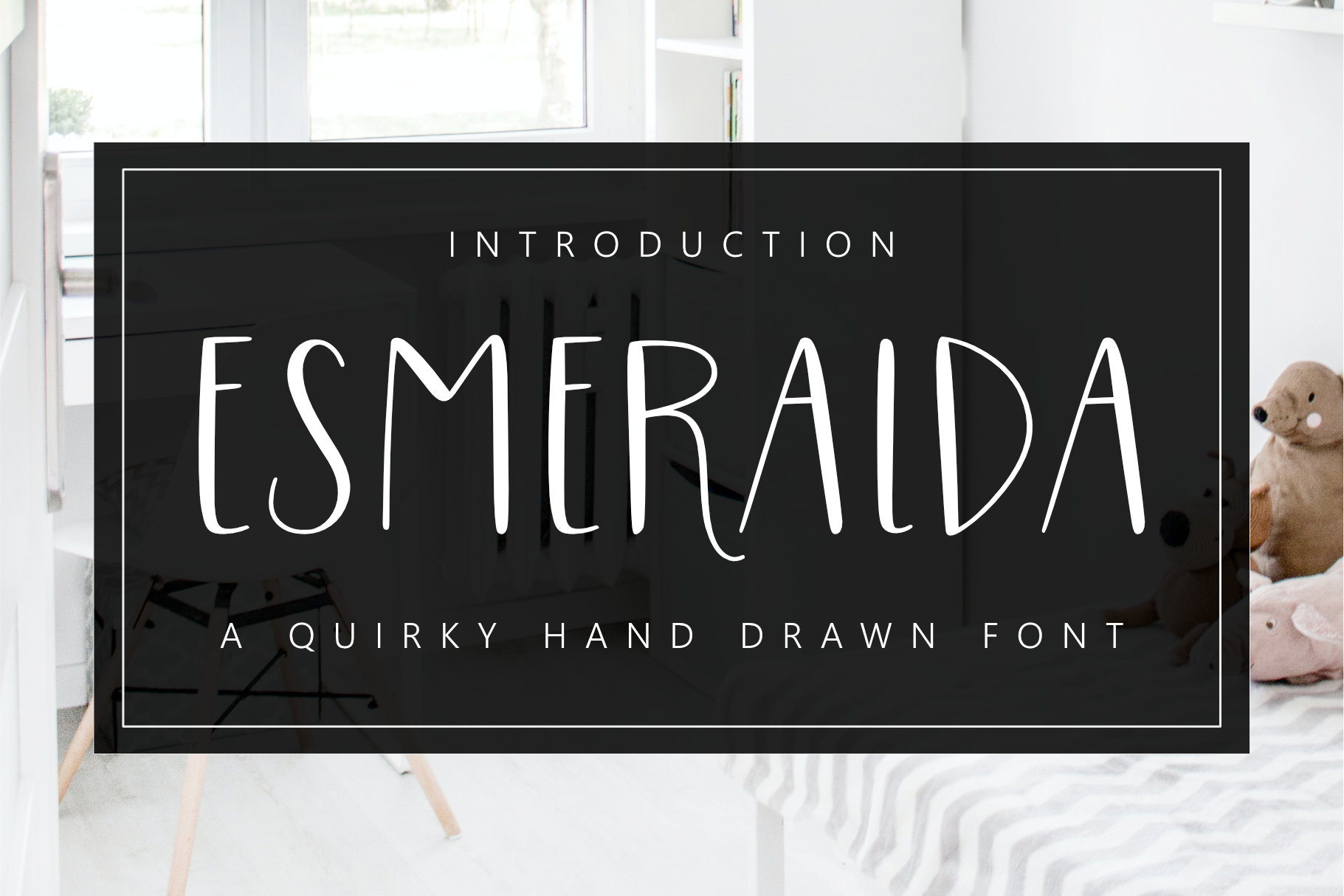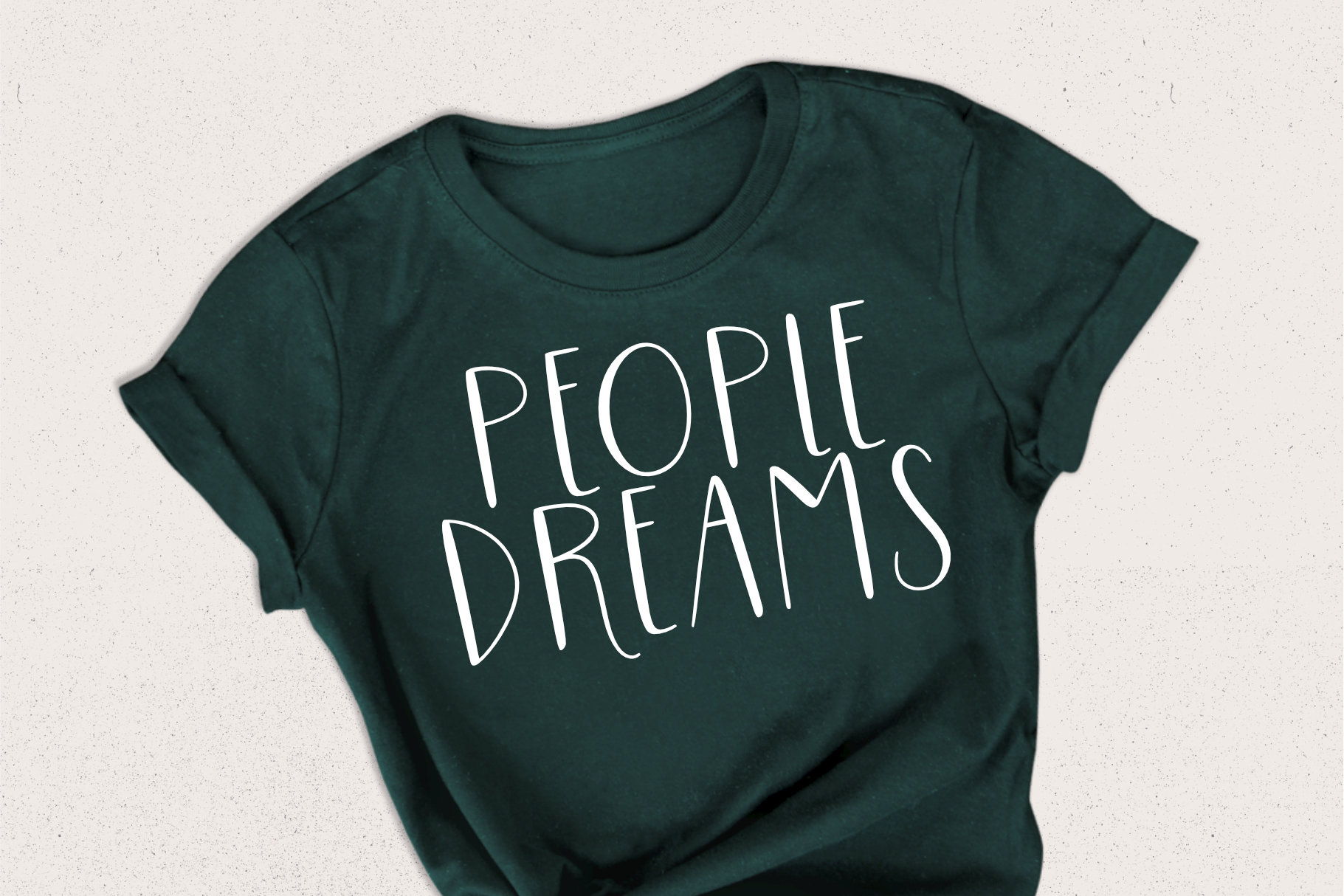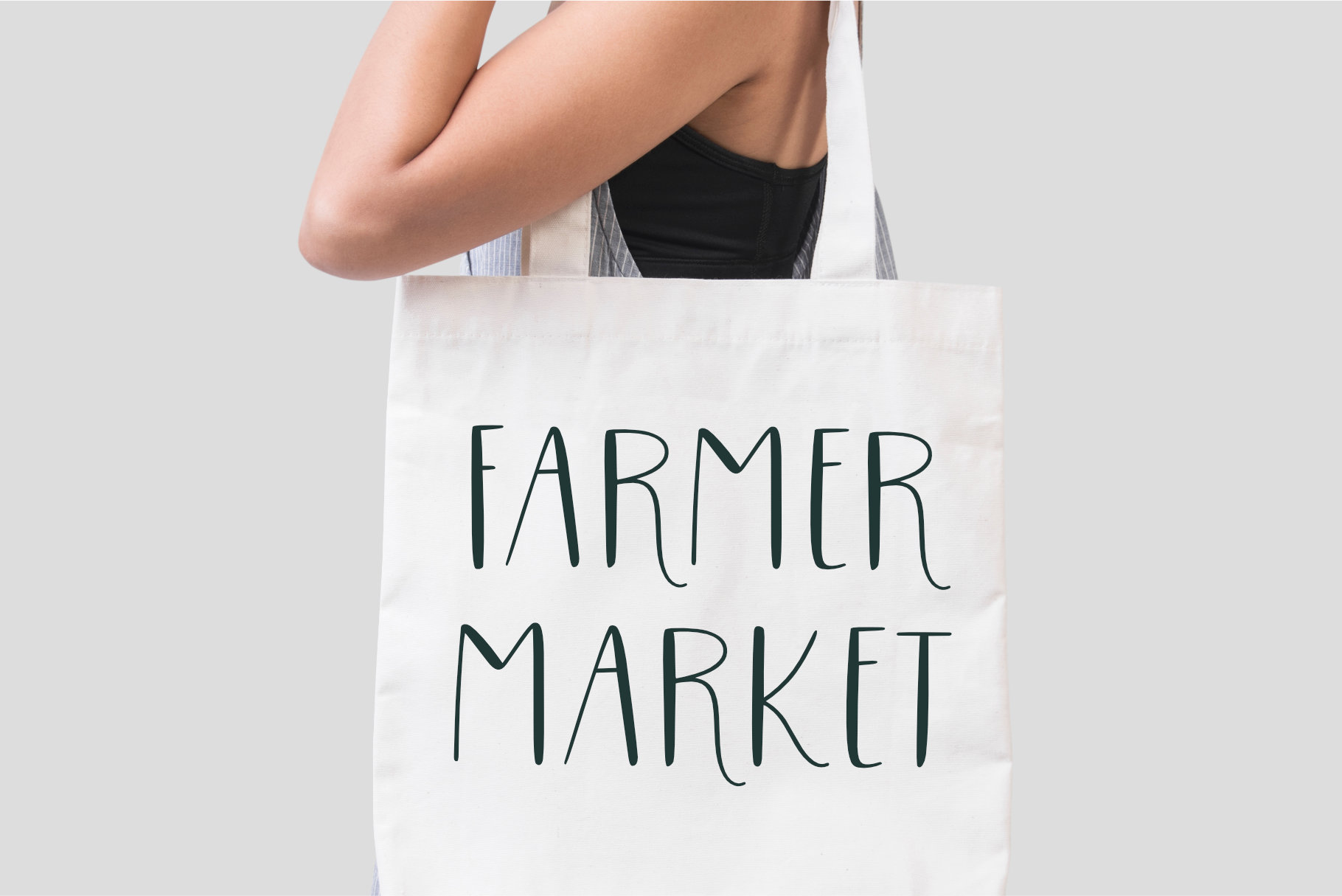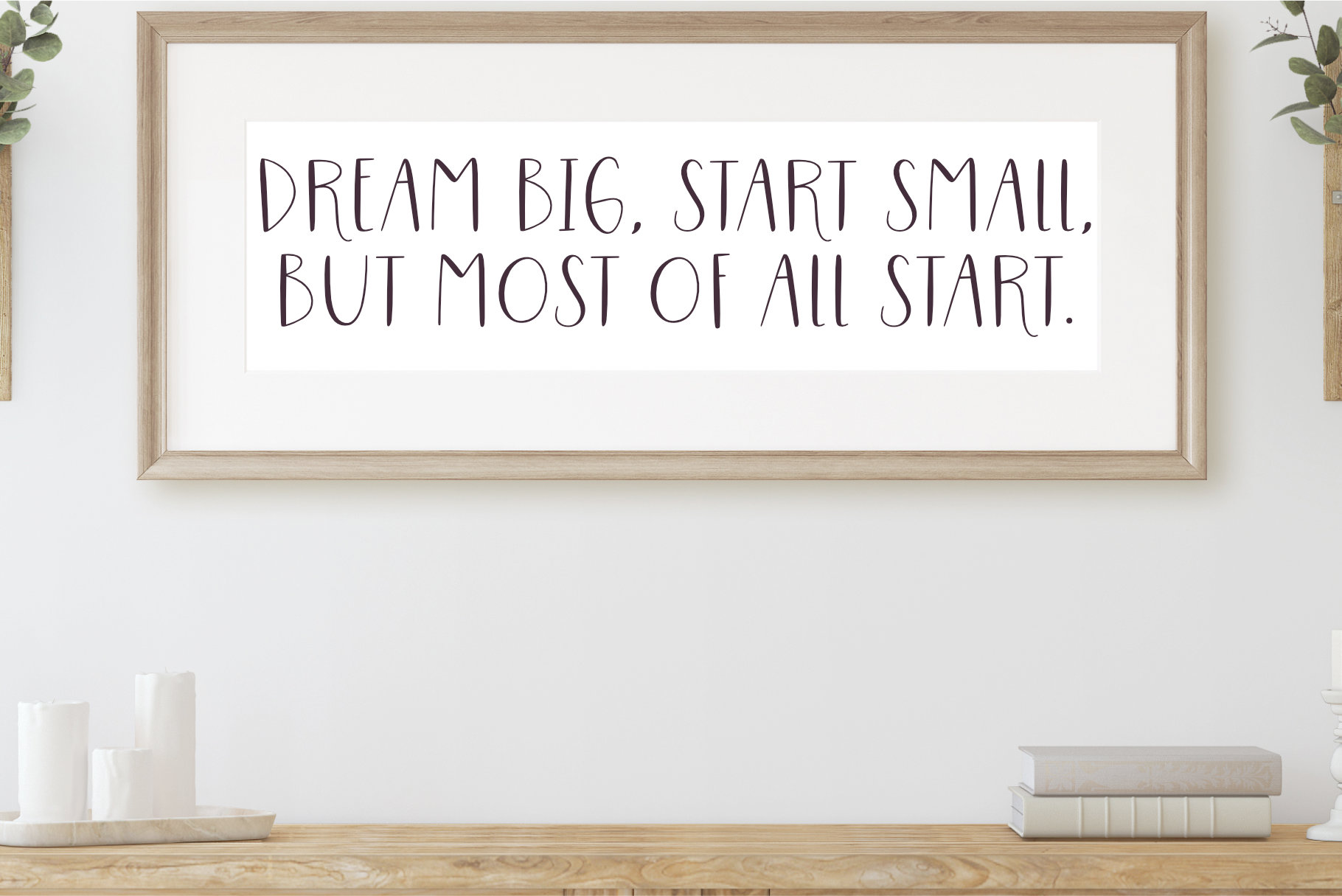
Esmeralda Font
Esmeralda Display Font
It’s a very stylish, cute, and beautifully handcrafted font that makes the best choice for your designs. This font is perfectly made for branding, packaging, headline, logos, magazines, books, greeting/wedding cards, packaging, fashion, make-up, stationery, novels, labels, or any type of advertising purpose.